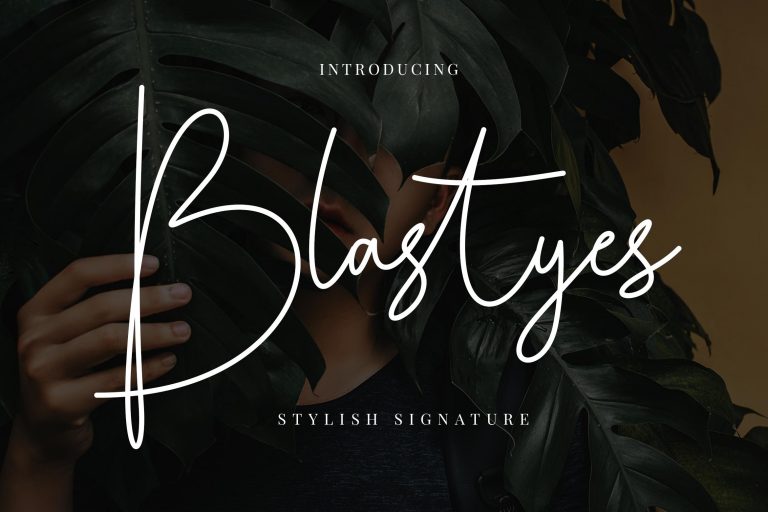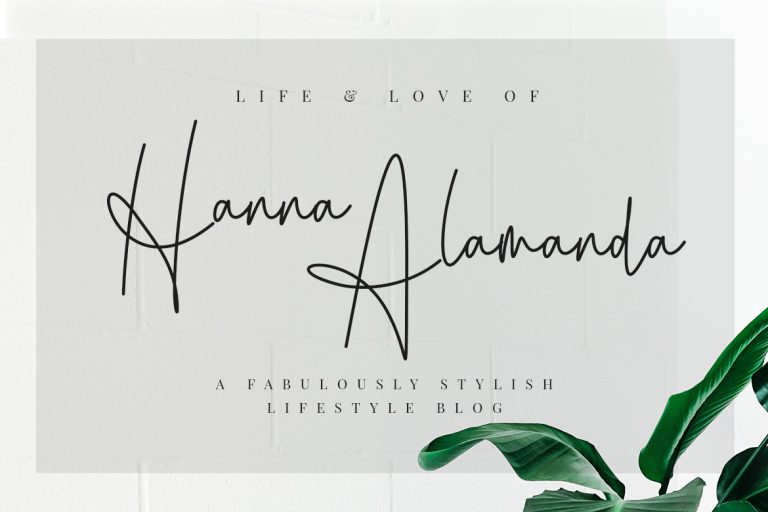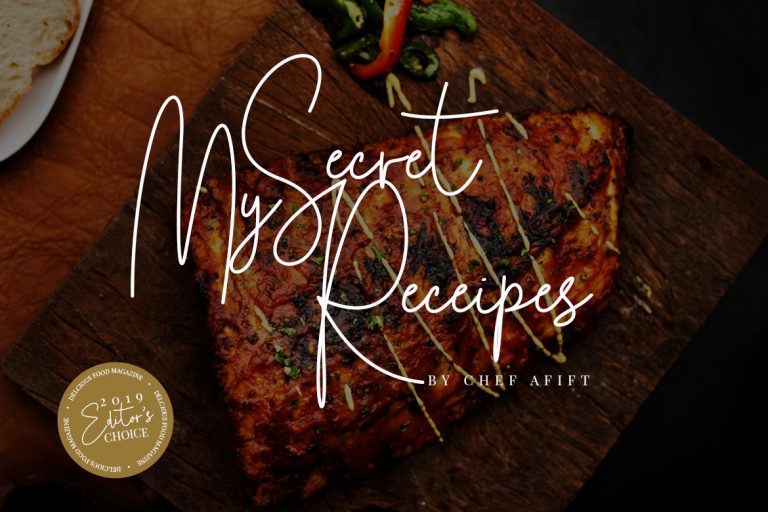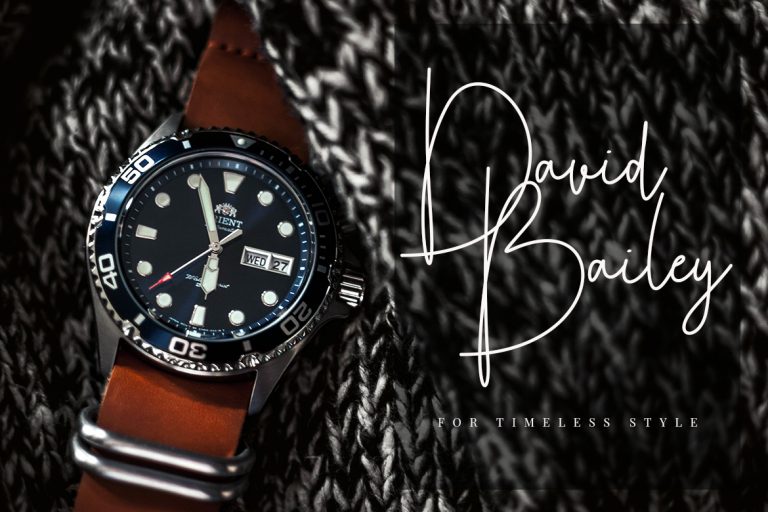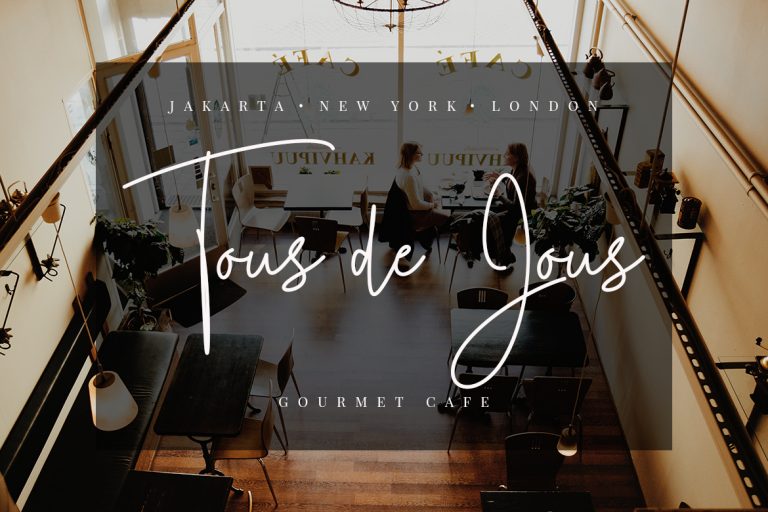
Blastyes Signature
Blastyes Signature is a elegant signature script with incredibly realistic & allows customers to instantaneously create a signature for themselves or for their clients.
Blastyes Signature is perfect for branding projects, logo, wedding designs, social media posts, advertisements, product packaging, product designs, label, photography, watermark, invitation, stationery and any projects that need handwriting taste.